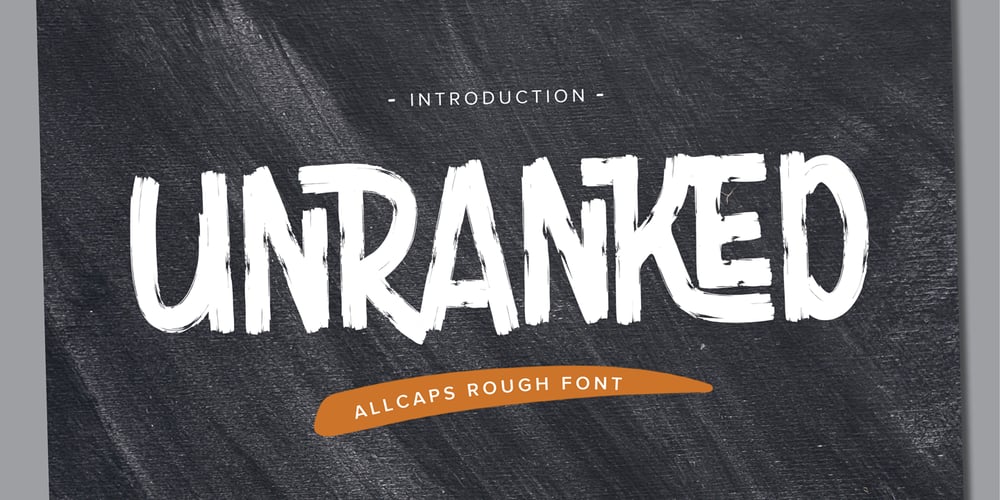
Unranked Font Family was designed by Abdul Malik Wisnu and published by Gassstype. Unranked contains 1 styles and family package options. Here comes our new font Unranked this is a sans handwritten that is written casually and quickly.this font are made with brushes on Procreate. Then crafted carefully drawn into vector format. That is why Unranked has Rough and strong characteristic more natural look to your text with a more modern look to your text.